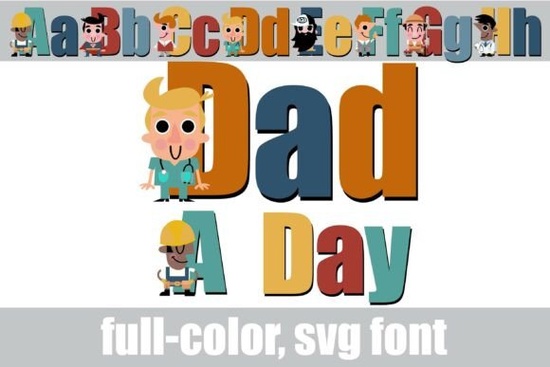
If you're looking for a font that adds personality and warmth to your designs, the Dad a Day Font is worth a closer look. It's not just another typeface it's a full-color SVG font packed with charming cartoon fathers dressed in different professions. Think doctors, nurses, builders, and superheroes, all paired with tall, bold condensed letterforms. This makes it a practical choice for anyone who wants to create heartfelt projects without spending hours illustrating each character.
What makes Dad a Day Font different from a regular font?
Most fonts are single-color outlines that require you to add color and details manually. Dad a Day Font works differently. It's an SVG font, which means each letter comes with built-in color and intricate artwork. The characters are fully illustrated, so you get both the letter and a unique dad cartoon in one piece of text. For example, the letter "A" might feature a dad in a hard hat, while "B" shows a dad in a lab coat. This saves you time and ensures consistent, professional-looking results.
Since it's a color font, it displays beautifully in modern design software and web browsers that support OpenType-SVG. You can type a word and instantly see a line of playful dads. No extra layering or clipping masks needed.
How can I use this font in my projects?
The versatility of this typeface makes it a great fit for both personal and commercial work. Here are a few ideas that designers, crafters, and small business owners often ask about:
- Father's Day greeting cards – Create one-of-a-kind cards for different types of dads. The built-in professions let you match the design to the recipient's job or hobby.
- Youth apparel labels – If you sell t-shirts or onesies for dads and kids, this font adds a friendly, handcrafted feel. The bold letters are easy to read from a distance.
- Classroom appreciation posters – Teachers can make thank-you posters for parent volunteers or field trip chaperones. The colorful characters grab attention.
- Scrapbooks and memory books – Combine the font with photos and stickers to tell a story about everyday heroes in your family.
- Social media campaigns – Use it for Instagram posts, Facebook banners, or Pinterest pins celebrating dads. The built-in color ensures your graphics pop without heavy editing.
Because it's a novelty typeface, it works best for short headlines, names, or phrases. It might not suit long paragraphs, but for titles and emphasis, it does the job well.
Is this font suitable for print-on-demand and small businesses?
Yes, it's designed with print-on-demand sellers and independent brands in mind. The SVG format preserves crisp lines and vibrant colors when printed on mugs, phone cases, tote bags, or posters. Since the artwork is included in the font file, you don't need to manage separate illustrations for each product variant.
Small businesses can use it for branded packaging, tags, or thank-you notes. The cute dad characters add a human touch that helps products stand out in a crowded market. If you run a shop focused on family or fatherhood, this typeface can become a consistent visual element across your listings.
- Do you need commercial rights? Review the license included with your purchase. Creative Fabrica offers different options depending on your usage.
- Do you plan to combine it with other fonts? Pair it with a clean sans-serif for body copy to keep your design balanced.
Once you have the font installed, try typing a simple word like "DAD" or a name and see how the characters interact. You can often tweak the color or size just like any other typeface, but the artwork stays intact. This makes it a straightforward choice for adding a personal, handcrafted feel to your projects without needing advanced illustration skills.